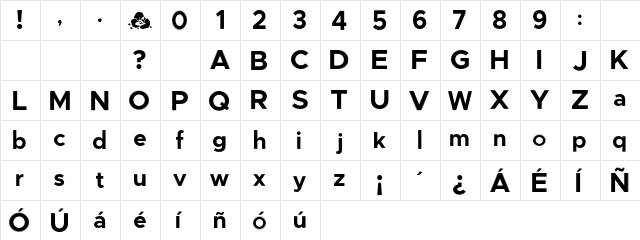
AmbienteSostenible Regular
Design Context for AmbienteSostenible Typeface
AmbienteSostenible takes a measured approach to typography — its balanced proportions and neutral character make it a reliable workhorse for both digital and print work.